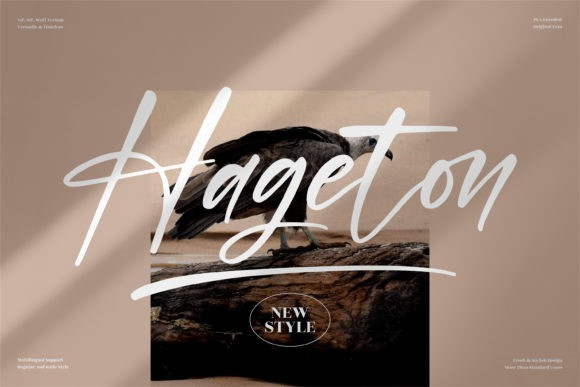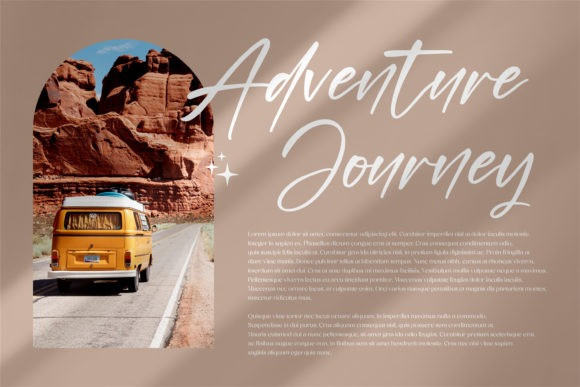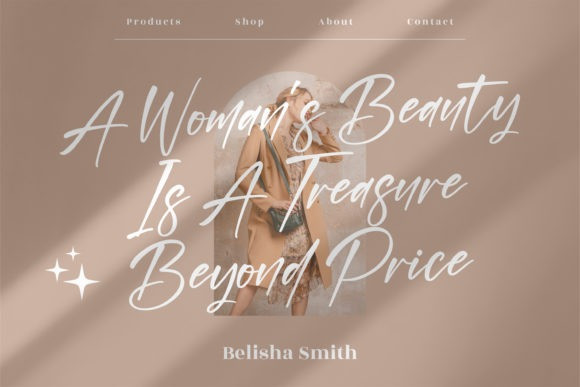
Hageton Font
Hageton is a chic, refined script font that emanates sophistication and elegance. Its stylish alternates and ligatures make this font the perfect match for any project.